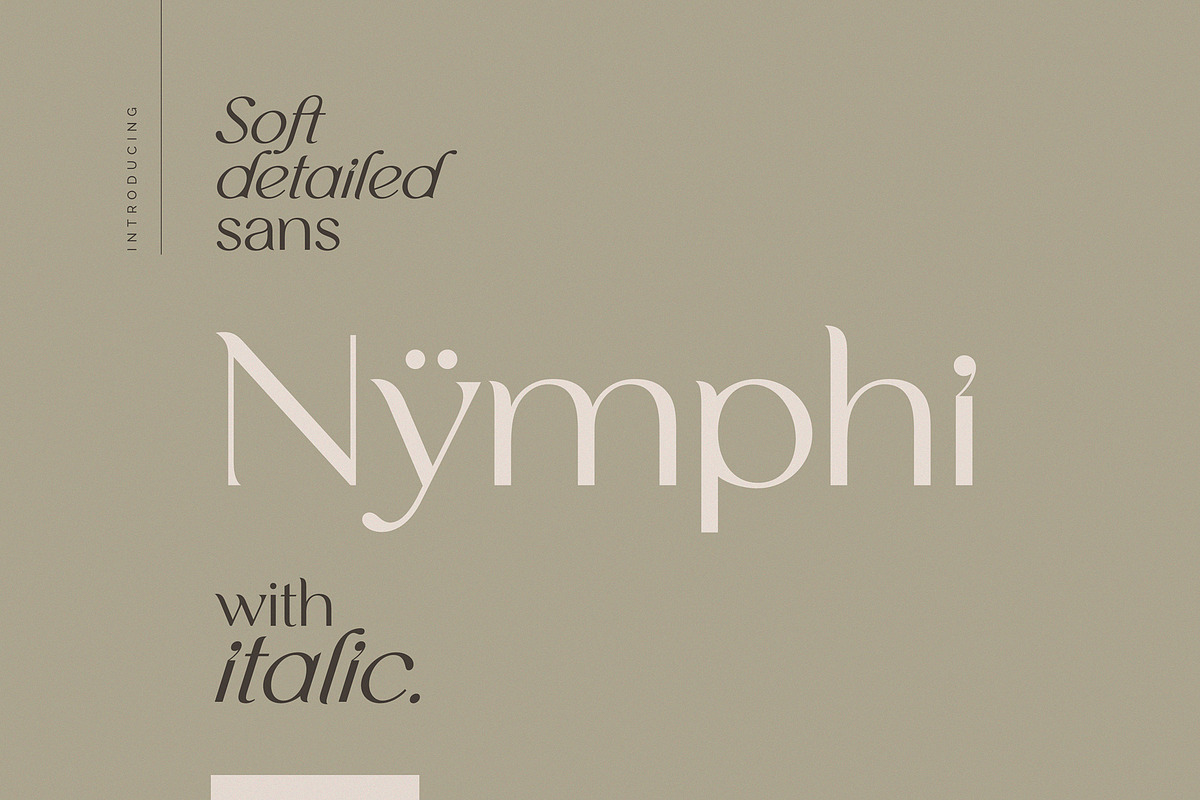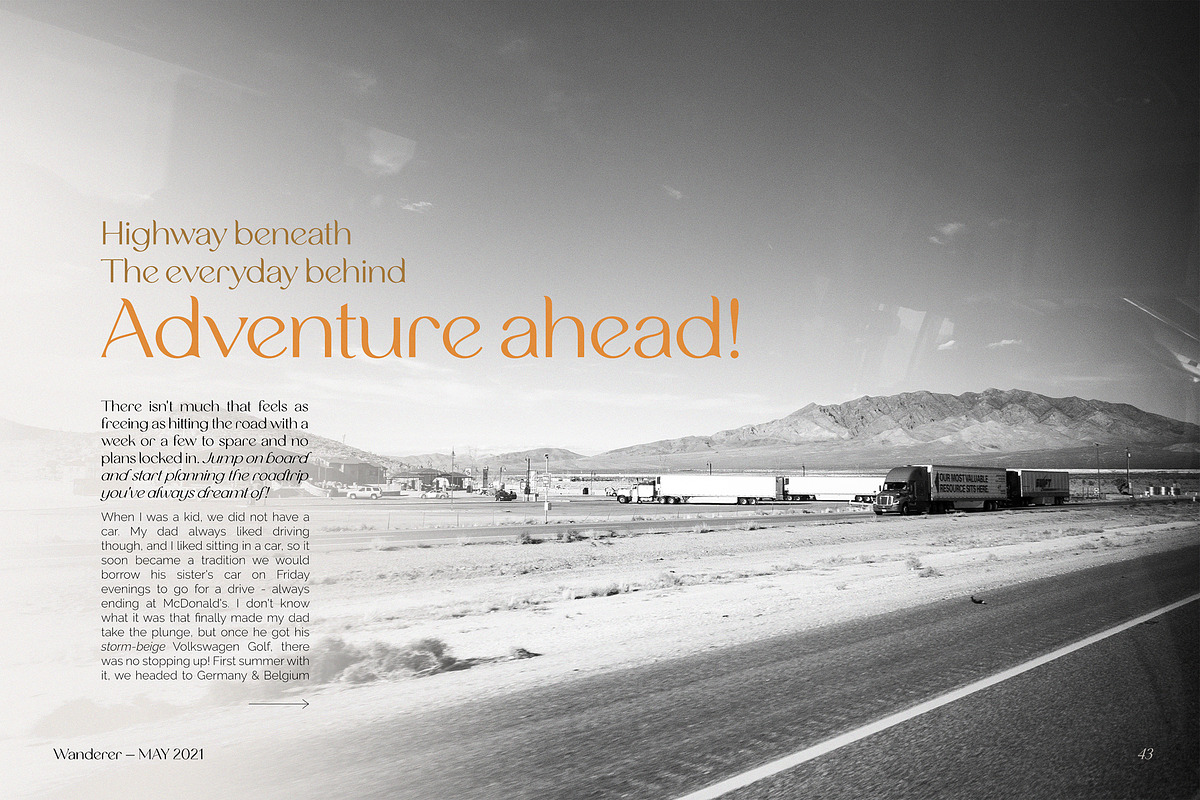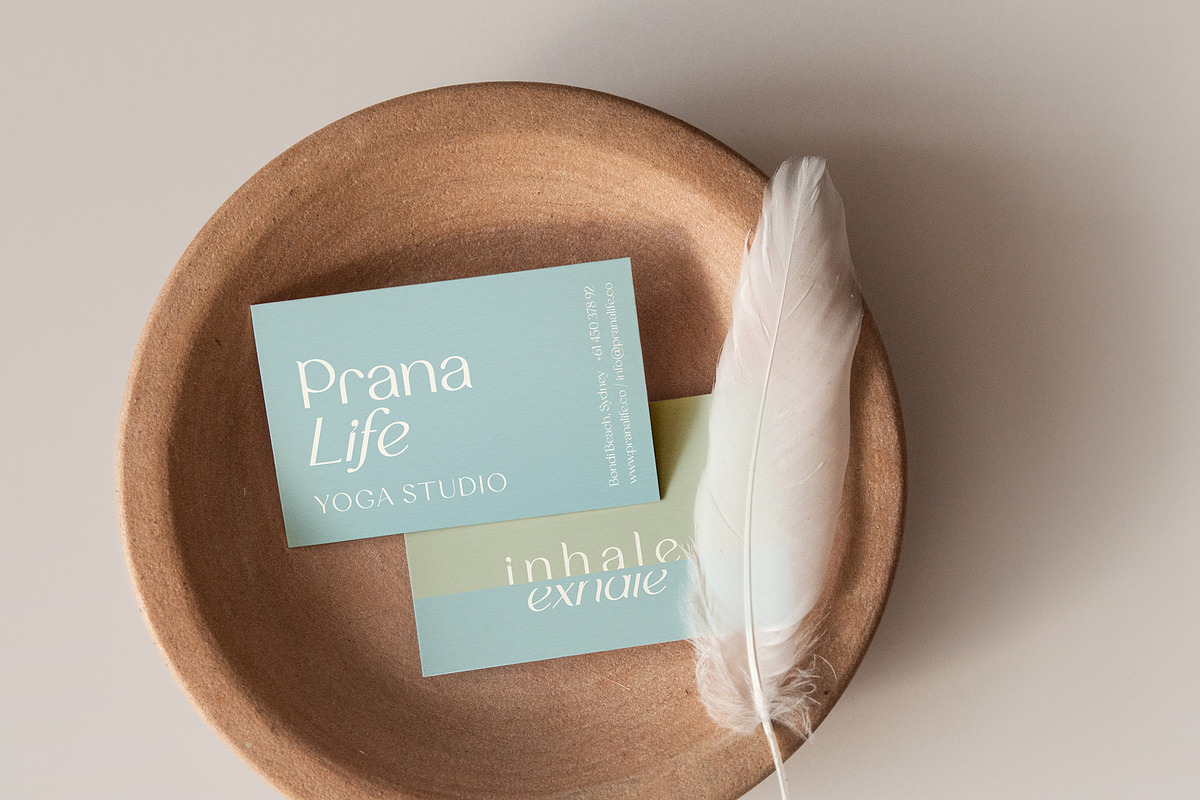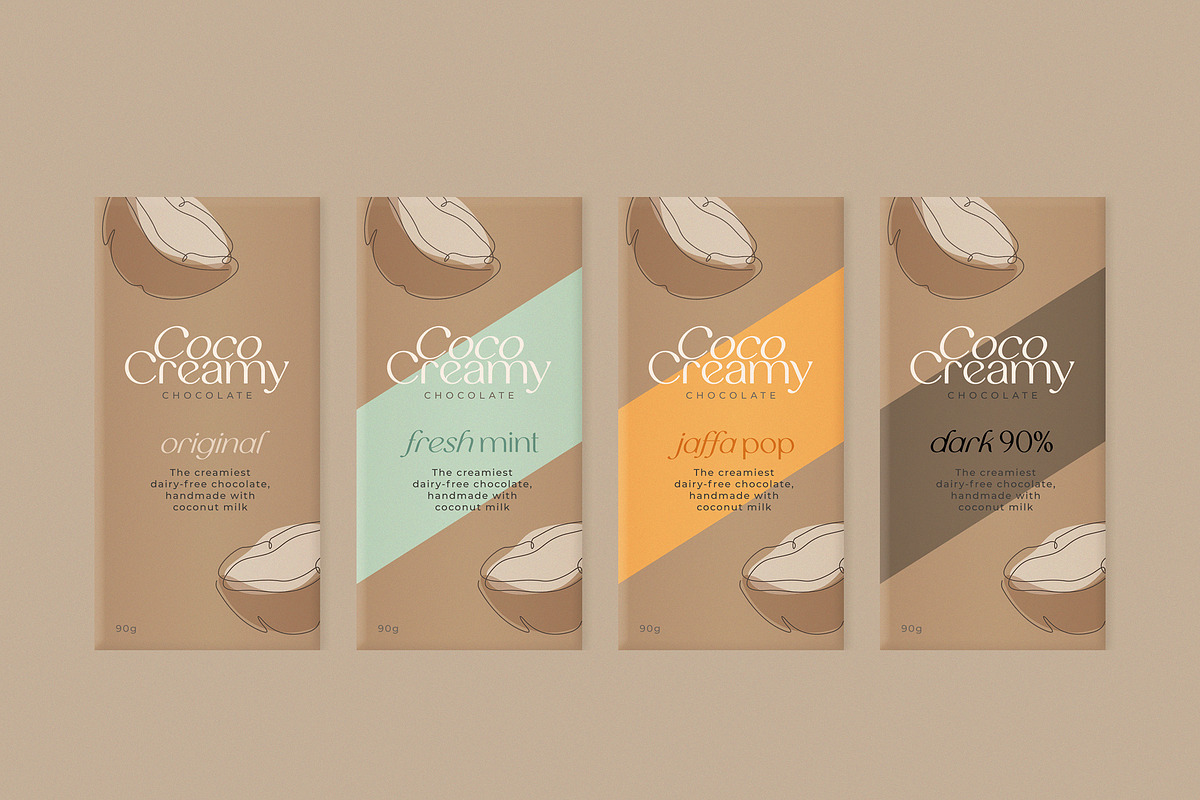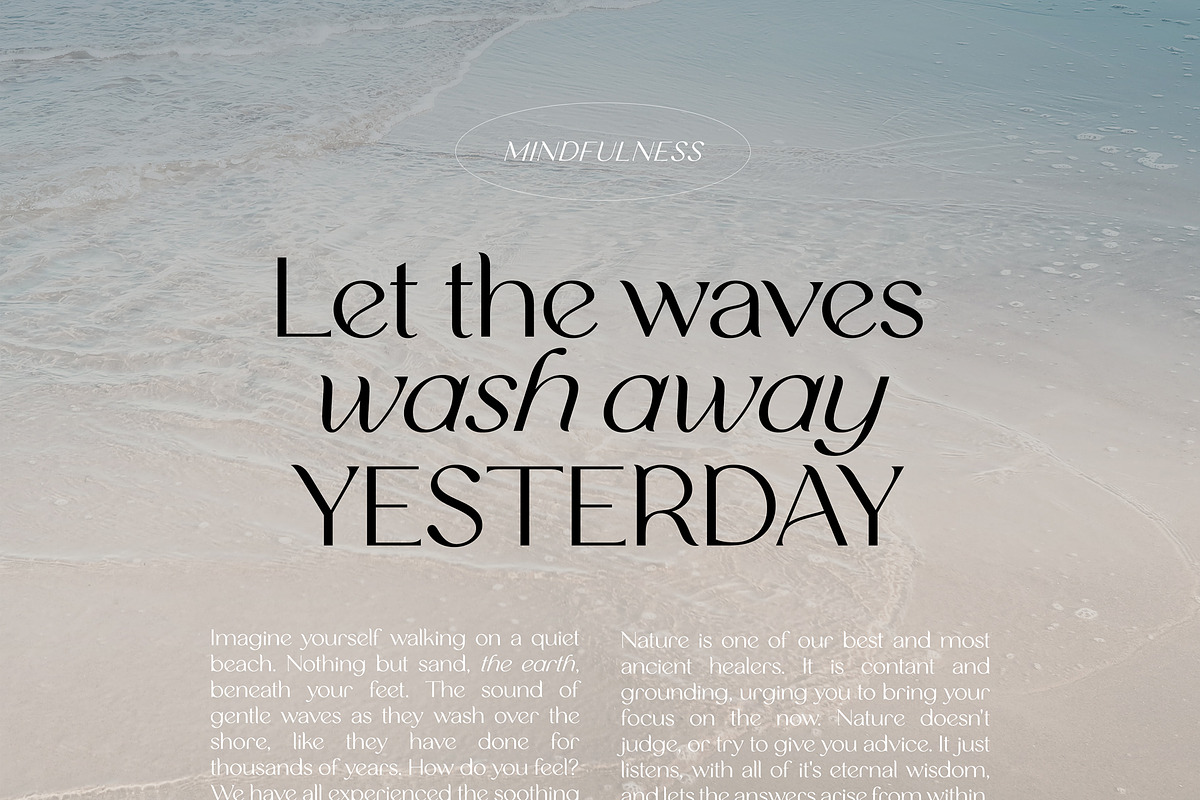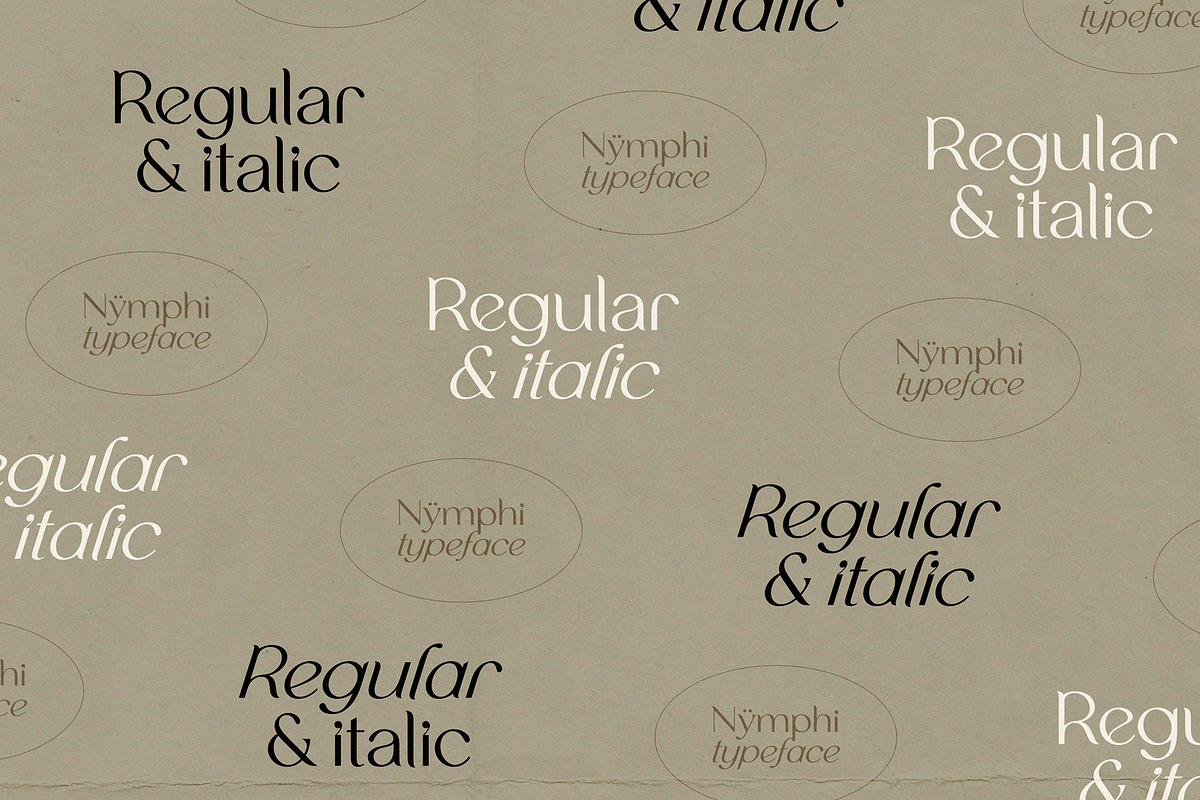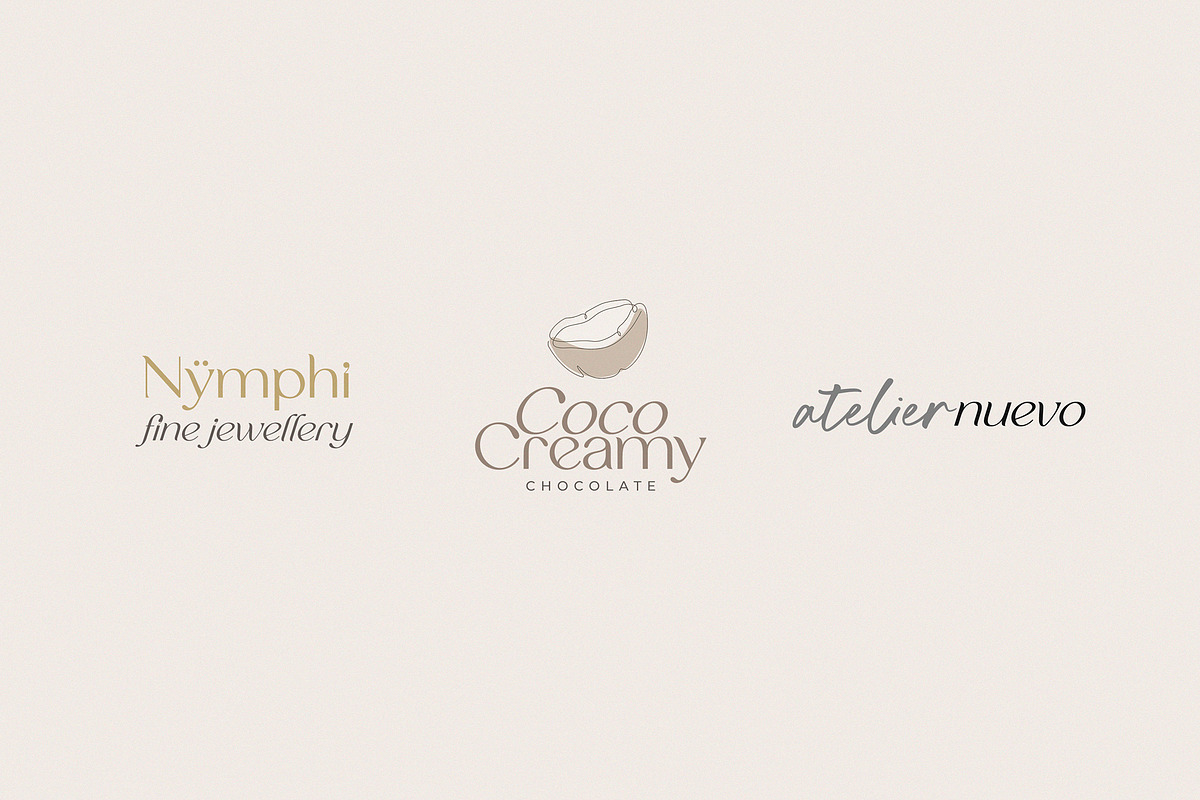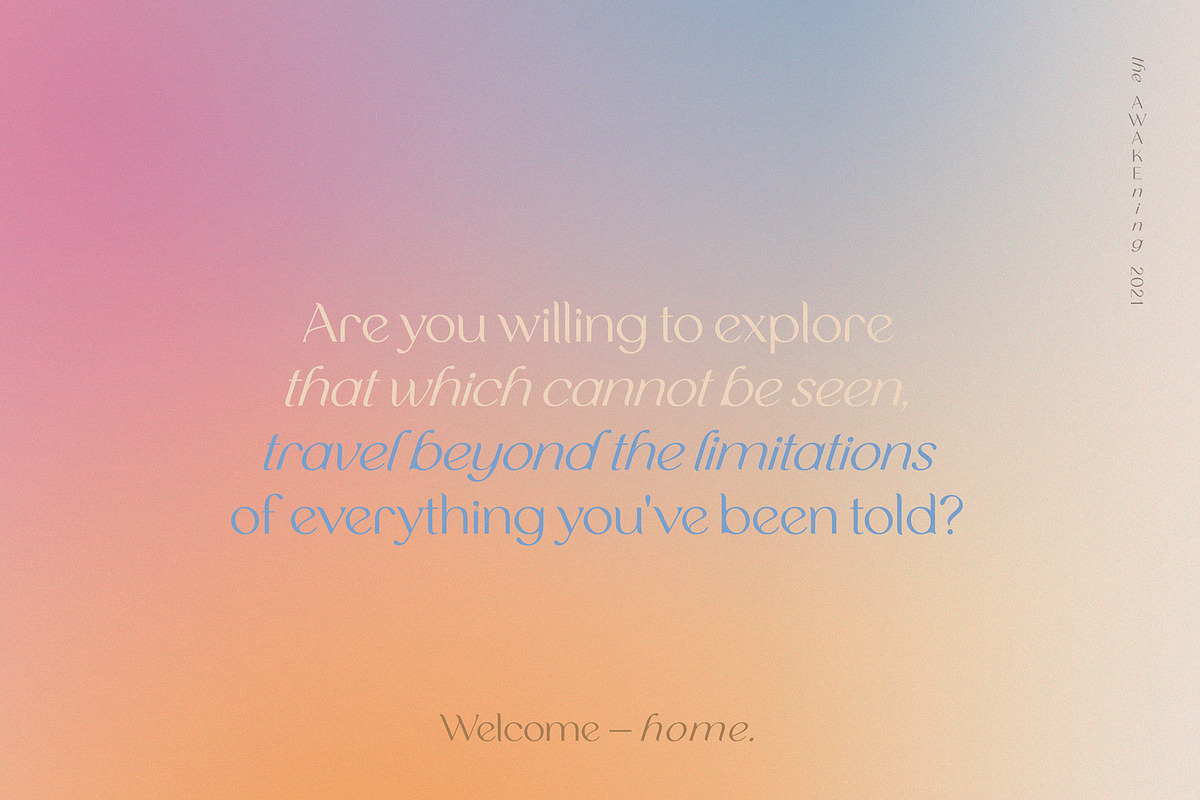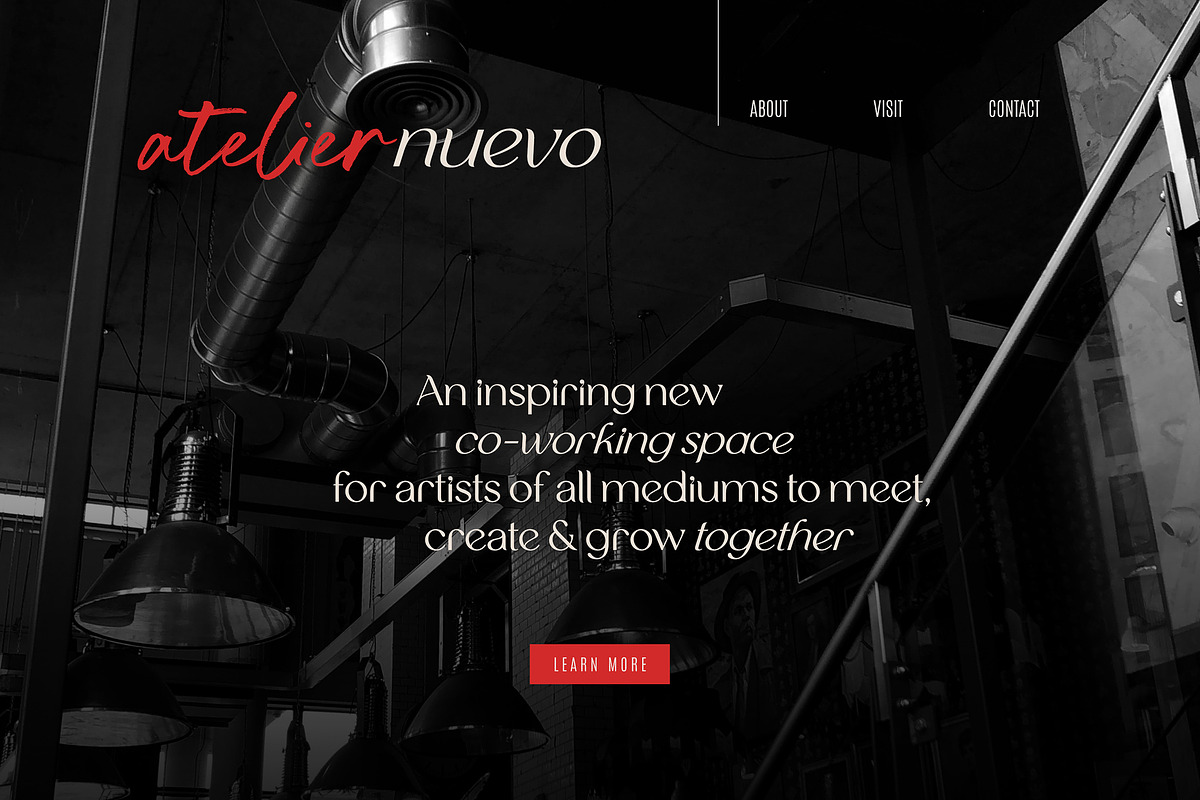
Nymphi | soft detailed sans + italic
Clean, modern, soft, detailed. This is Nÿmphi - a display sans with some serif inspired elements. Coming with an italic version that has it's own striking details, it is a perfect combo to really liven up your typography! Ideal for logos and headings due to it's detailed nature - but also clean enough for good readability in longer texts.